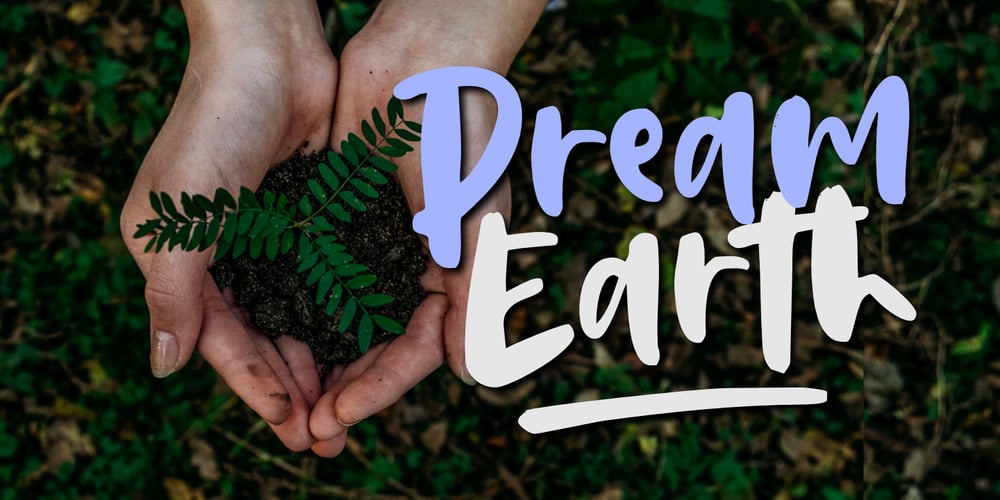
Dream Earth Font Family was designed by Aldy Sidik and published by Epiclinez. Dream Earth contains 1 styles and family package options. Dream Earth is a cool, brushed, and relaxed handwritten font. This font is suitable for designs such as t-shirts, sportswear, logos, advertisements, clothing, and moreSo what’s included : Basic Latin A-Z & a-z Numbers, symbols, and punctuations Ligatures and swashes Accented Characters : ÀÁÂÃÄÅÆÇÈÉÊËÌÍÎÏÑÒÓÔÕÖØŒŠÙÚÛÜŸÝŽàáâãäåæçèéêëìíîïñòóôõöøœšùúûüýÿžß Thank you